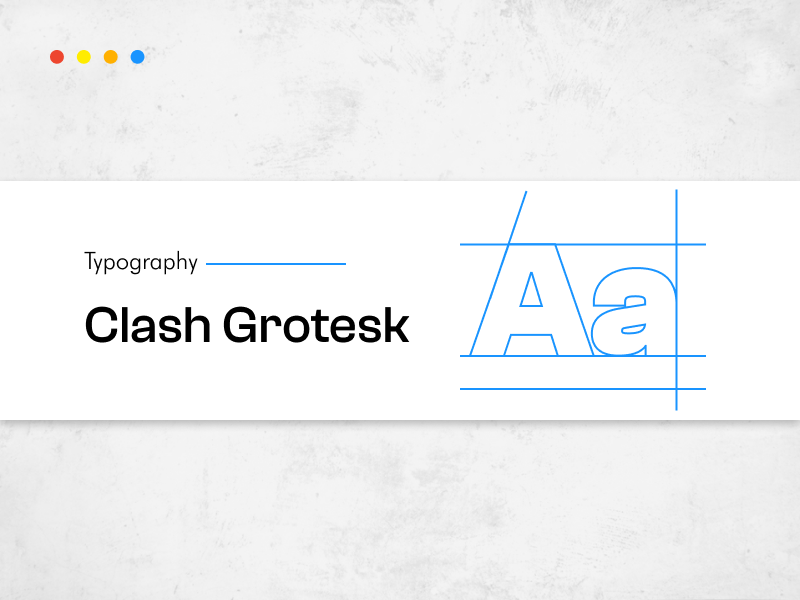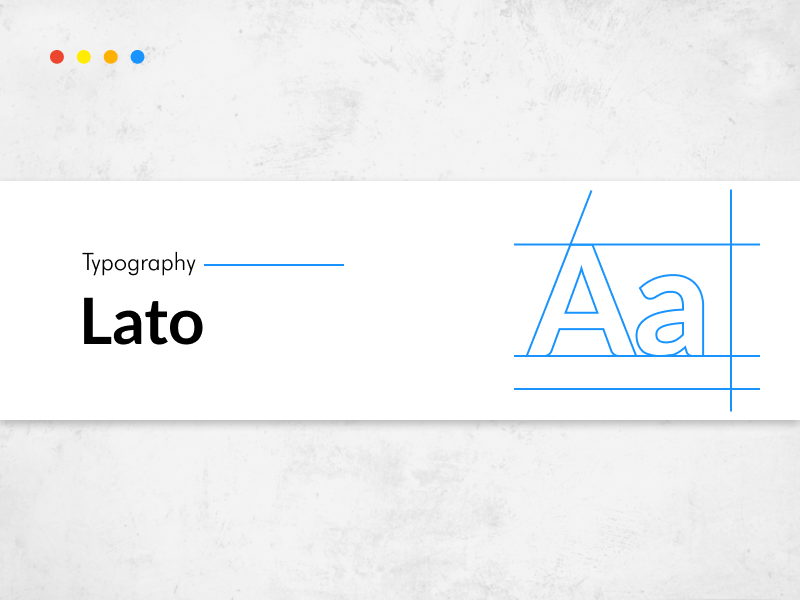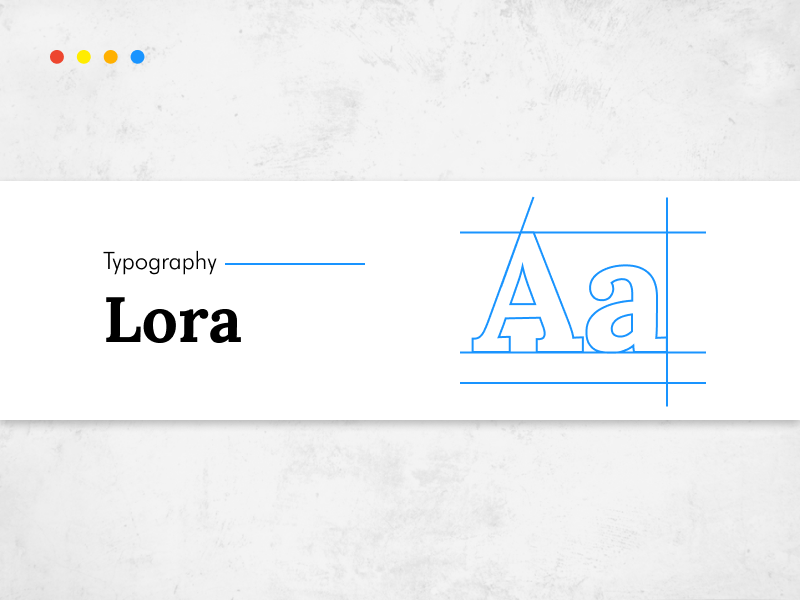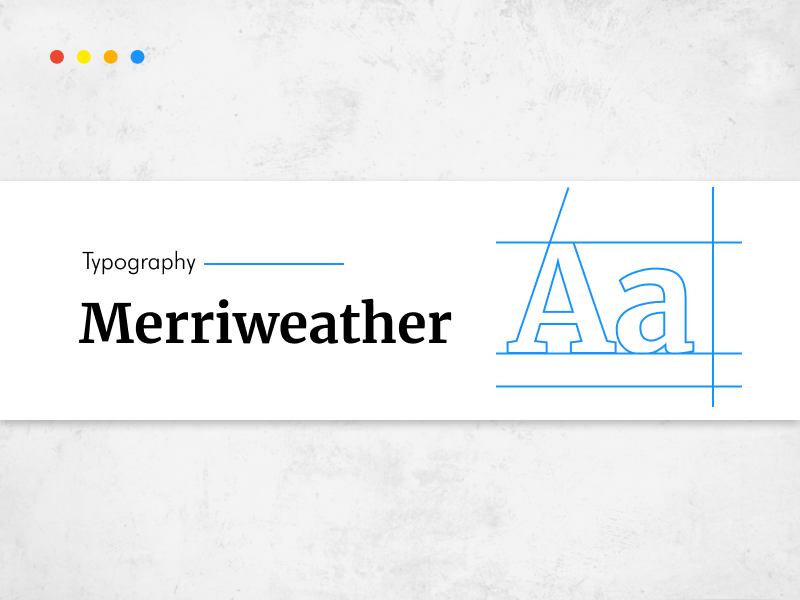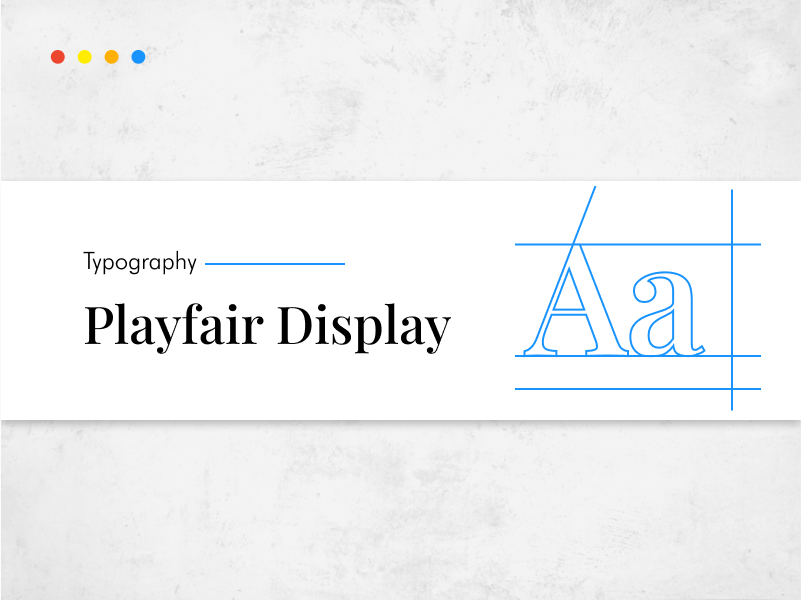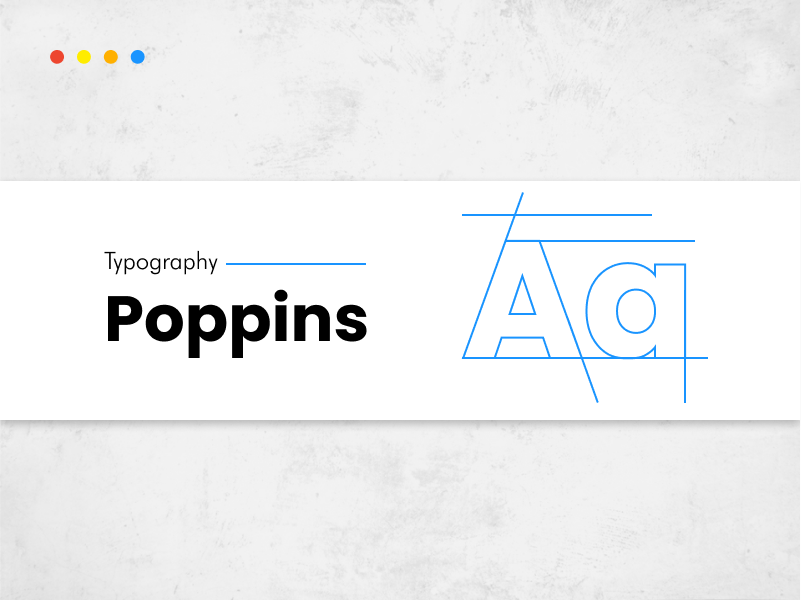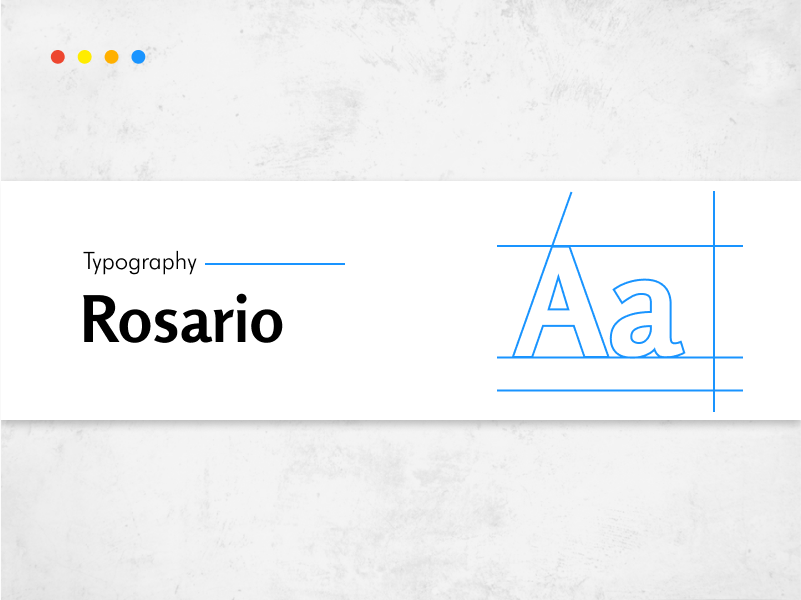
Have you ever wondered why some SaaS websites look more attractive and put together than others? Sometimes, their secret lies in choosing the best fonts for SaaS websites.
Choosing the wrong font can compromise the overall quality of your web design. Despite your talent and best efforts, you can end up with an average or underperforming design if you fail to pick the correct font.
Yet, fonts play a fundamental role in making a website design a delightful experience for site visitors. The right typography helps:
At some point, we’ve all made poor font choices that undermine a website’s performance. But after working on over 500 web designs with my digital marketing agency, I learned what works and what doesn’t in the SaaS industry.
In web design, there is always room for experimentation, but in my experience, there are 7 best fonts for SaaS websites that never fail to complement a website’s functionality.
In this article, I’ll tell you about these fonts, which SaaS projects they suit, and, as a bonus, some great font combinations to make your SaaS website stand out.
Common Mistakes To Avoid When Choosing Fonts For SaaS Websites
In the competitive market, businesses don’t only need a great SaaS website design; they need a site that converts. An often overlooked design element that has a huge impact on conversion rates is font.
Typography in web design, when chosen correctly, improves body text readability, creates visual hierarchy, and enhances the user experience. Web designers can follow these tips to ensure they pick the right font for a SaaS company website:
Now you know what design aspects play a crucial role when choosing the right font for a SaaS website. You can move on to pick the font.
There are an endless number of free fonts available. That large number can be pretty overwhelming, so I narrowed it down to the 7 best fonts for SaaS websites. By using these fonts correctly, you can almost guarantee to build a functional, attractive, and high-converting design for any SaaS company.
The first font on this list is highly versatile.
You can use it on a plethora of brands, styles, and different styles.
Poppins is flawless and modern, making it a safe choice for all types of SaaS websites.
One of the main reasons this sans serif font is a popular choice is its readability and its free commercial use.
Poppins is:
This font looks great in any form – italicized and regular, extra light and thin. That level of versatility enables you to adapt it to any SaaS project, from minimalist graphic design to more eccentric and trendy websites.
Lora is an elegant font with a unique combination of old-style serif letterforms and modern elements. That combo gives Lora a modern and contemporary feel, delivering a stylish aesthetic to any website.
This font is perfect for large body text. Its brushed curves and slightly condensed letters make extensive paragraphs look more appealing and eye-catching. If your SaaS web design includes a lot of copy, then I would say this is one of your top choices.
Clash Grotesk is part of the sans-serif font family, but it comes with an interesting twist.
When you look at this font, one feature immediately makes it stand out: its letterforms have very small “apertures.”
That particular feature makes Clash Gtotesk eye-catching. However, that detail doesn’t go overboard, keeping this font balanced.
Clash Grotesk is optimized for use on large sizes.
With some creativity, you can use this font for corporate branding to give your design a unique edge that makes it stand out from the competition.
Playfair Display stands out for its bold and strong lines, which make this font perfect for headlines and titles.
Designers usually use it for headings in lighter weight, resulting in aesthetically pleasing titles.
The font also features condensed characters with open shapes and rounded terminals, so it is also applicable for small font sizes.
This serif font gives a modern, elegant, and feminine vibe, making it an ideal choice for a classy website design with a female demographic.
Lato started gaining popularity when it was included in Google Fonts, quickly reaching the podium as the third most used font for websites.
This is a clean and versatile serif sans font that works well for almost any kind of SaaS website.